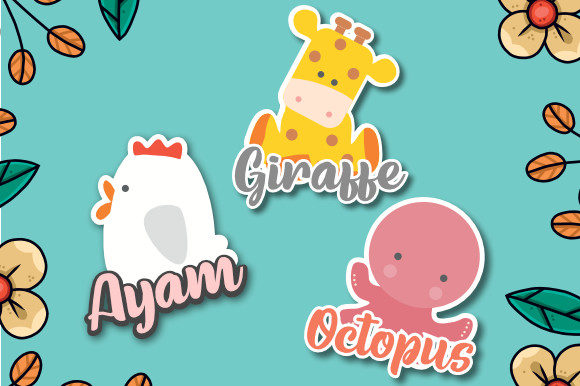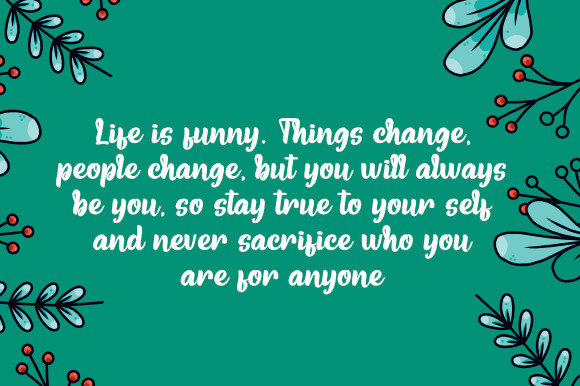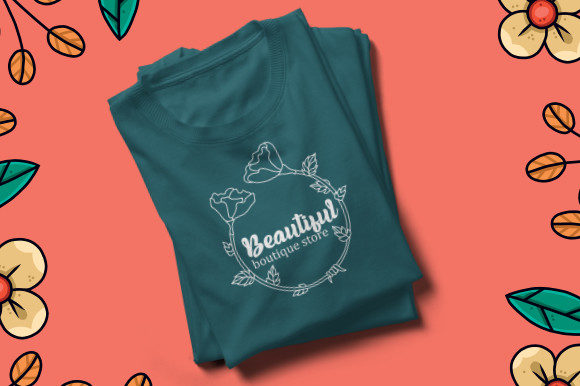
Introduction to Madino Font
Have you ever stumbled upon a font that captures the essence of your creative project and elevates it to a whole new level? For designers, finding that perfect font can be a game-changer. It’s the moment when all the elements come together, and your design begins to radiate with personality. This is exactly what happens when you work with the Madino Font – a beautiful, high-quality handwritten font that’s perfect for adding a touch of warmth and romance to your creative project.
Whether you’re working on a design project, crafting a digital art piece, or simply looking for a free download to spice up your social media graphics, the Madino Font is an excellent choice. With its thick, flowing letters and transparent background, this font is a versatile design resource that’s sure to add a creative twist to any project.
- Unique characteristics: Elegant script, cursive, and handwritten styles.
Honest Review: Madino Font
As a designer, I’m always on the lookout for high-quality design resources that can elevate my creative project. The Madino Font is a free download that caught my attention, and I’m excited to share my honest review.
- ✨ High-quality design with a unique, elegant aesthetic
- ✨ Translucent background that makes it easy to layer with other design elements
- ✨ Excellent for use in a variety of creative projects, from branding to digital art
While the Madino Font is a solid addition to any designer’s toolkit, there are a few limitations to consider:
- ⚠️ Limited character set, which may make it less suitable for longer text-based projects
- ⚠️ Some users may find the font’s style a bit too ornate for certain design applications
Overall, I’m impressed with the Madino Font’s design and versatility. It’s a great resource for designers looking to add a touch of elegance to their creative projects. With a bit of creative experimentation, I think you’ll find it’s a valuable addition to your design arsenal.
The Madino Font is ideal for use in a variety of creative projects, including logos, business cards, brochures, and social media graphics. Its clean and modern design makes it perfect for use in a range of industries, from fashion and beauty to technology and finance.
Comparison to Madino Font: While Madino Font has a more playful and whimsical feel, Great Vibes Font is more refined and elegant. Great Vibes Font is ideal for designs that require a high level of sophistication, whereas Madino Font is better suited for more casual and creative projects.